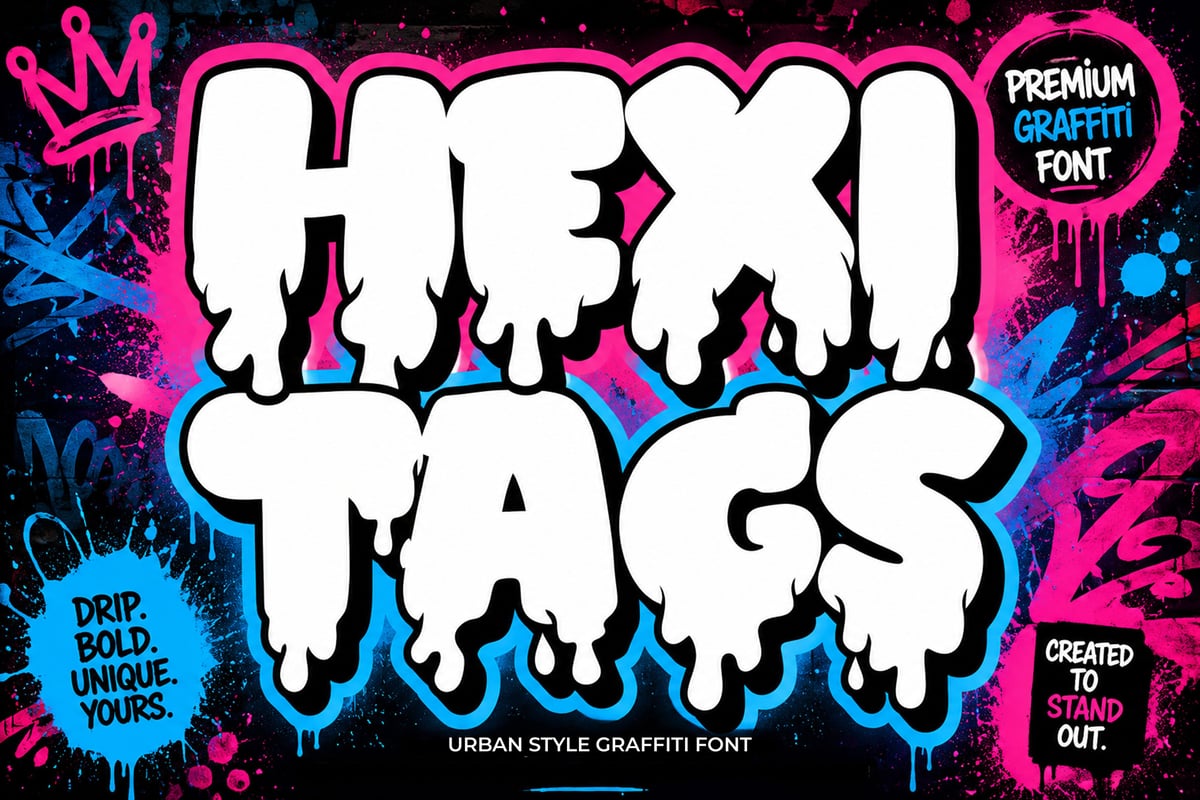
Hexitags
Bring raw street energy, bold attitude, and eye-catching urban character to your designs with Hexitags, a powerful 3D dripping graffiti font created for designers who want their typography to instantly stand out. Inspired by expressive graffiti lettering, street art culture, urban tags, and bold throw-up lettering, Hexitags combines a strong display structure with a dripping visual style that feels loud, energetic, and unmistakably street. The dramatic dripping details give every letter a unique